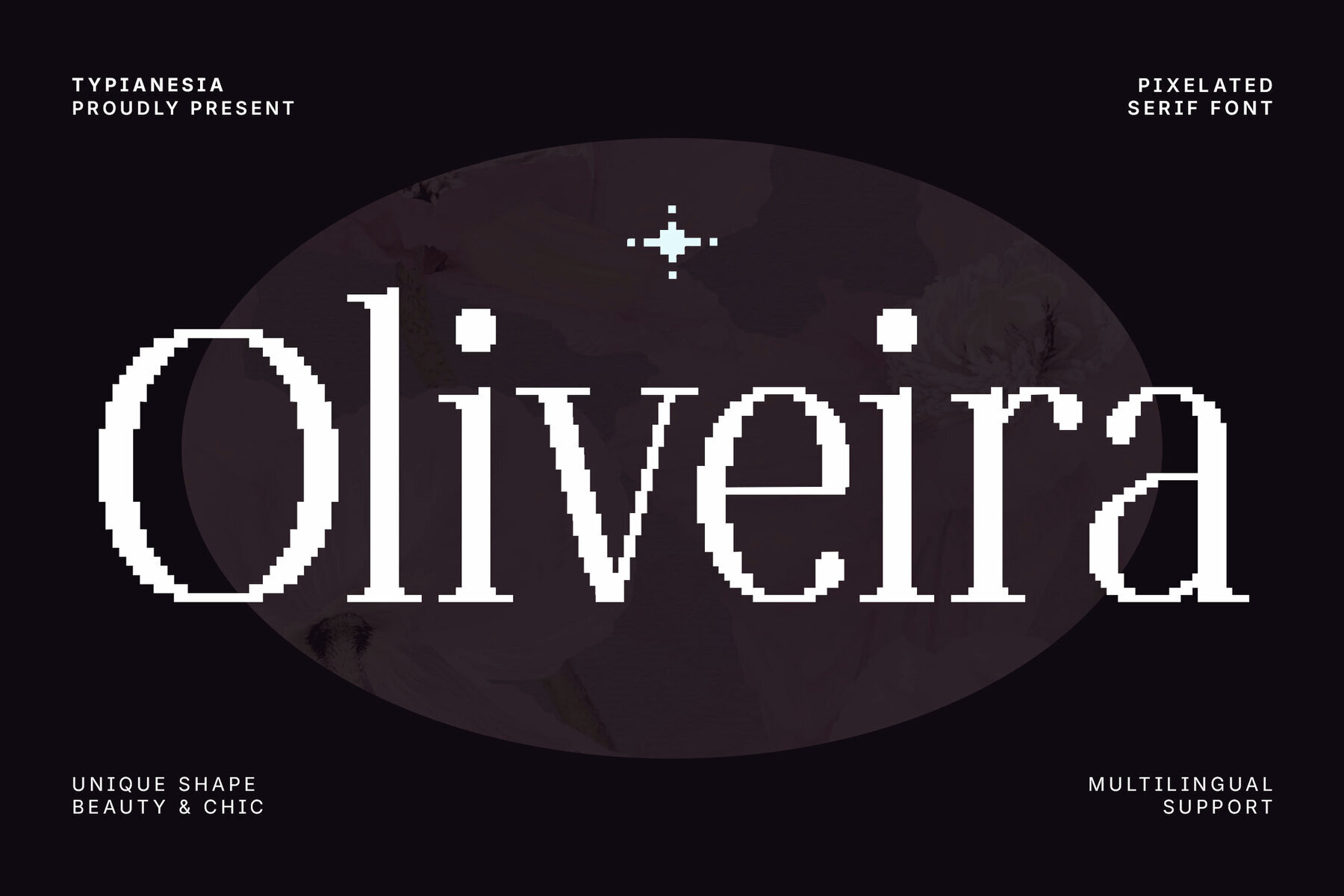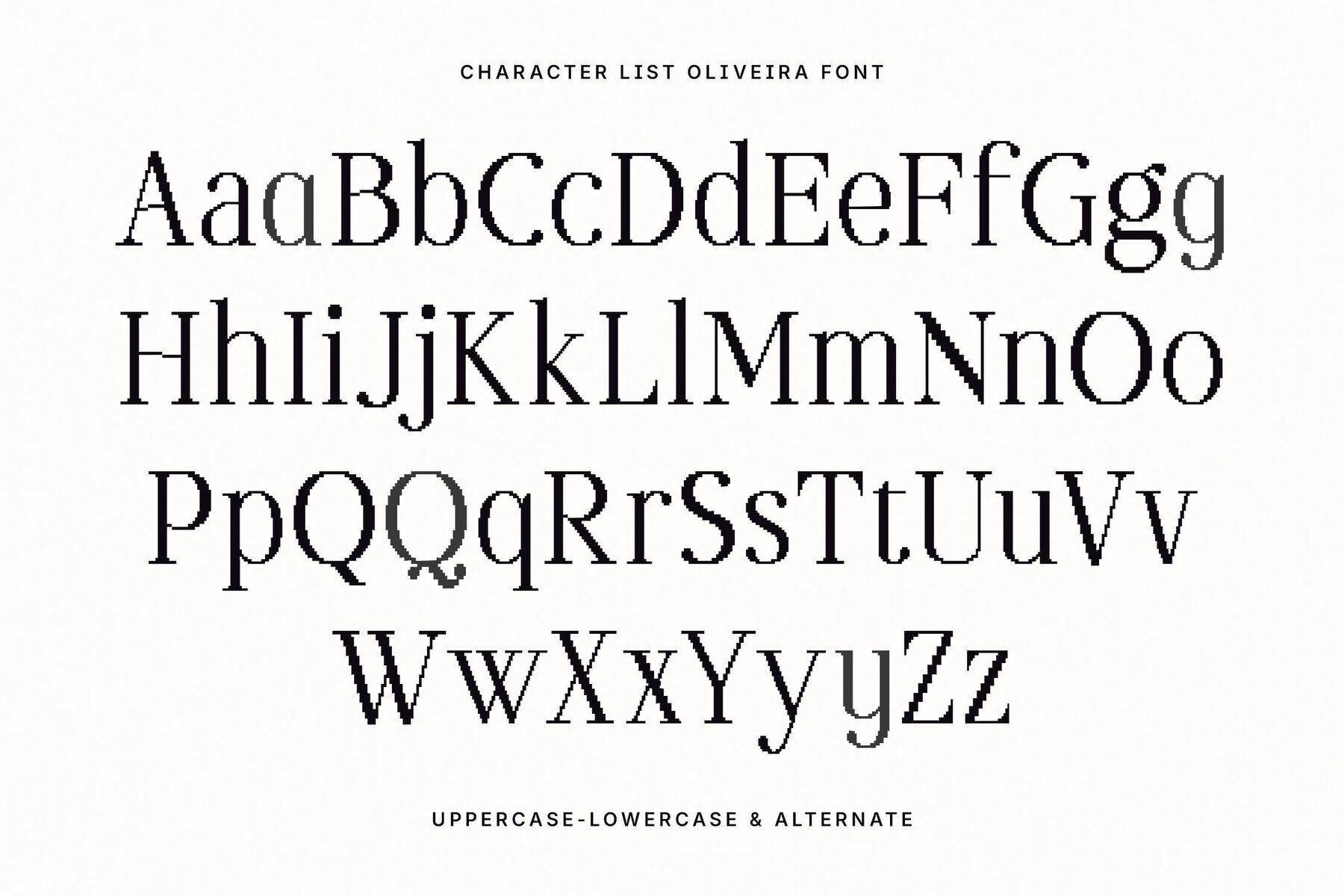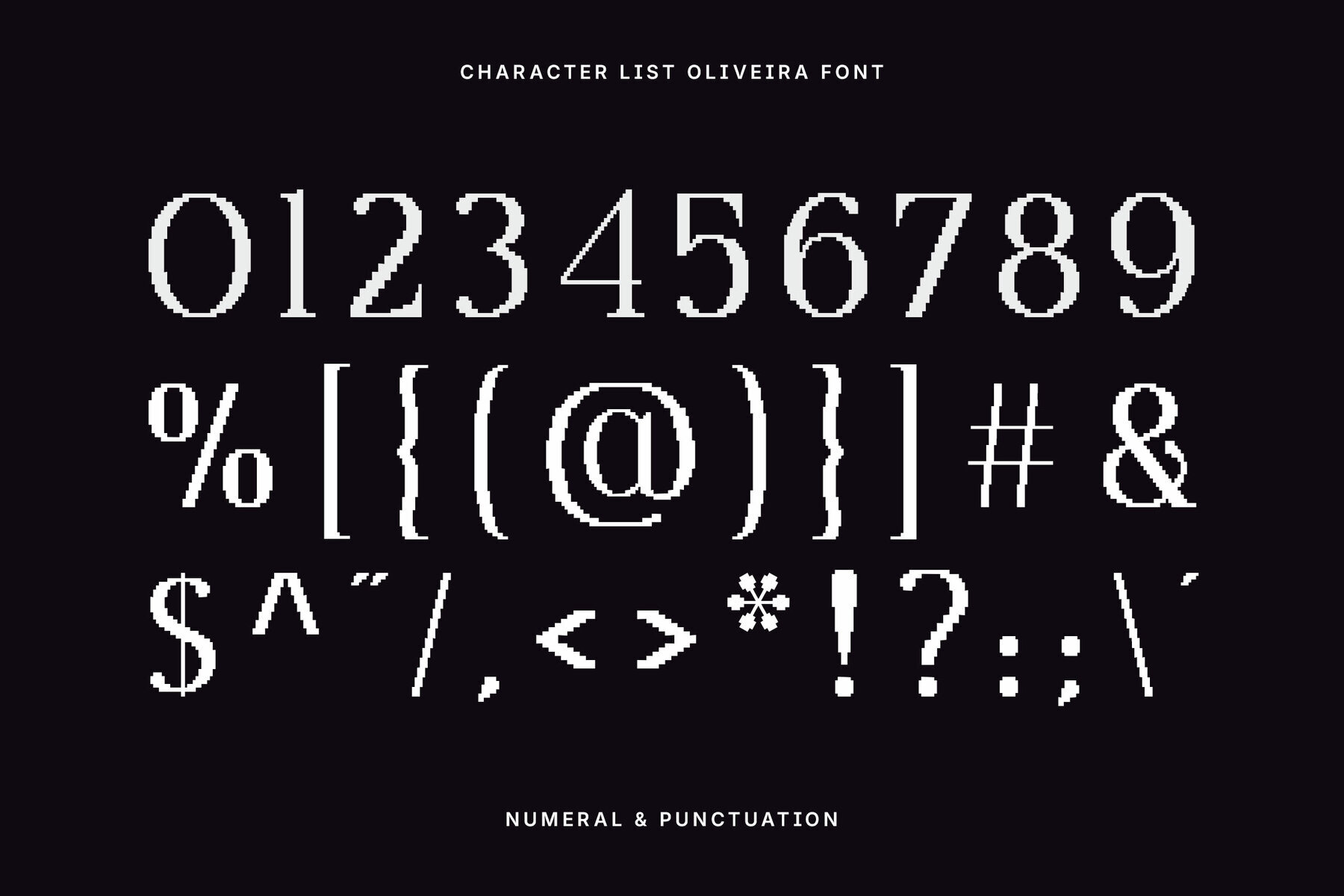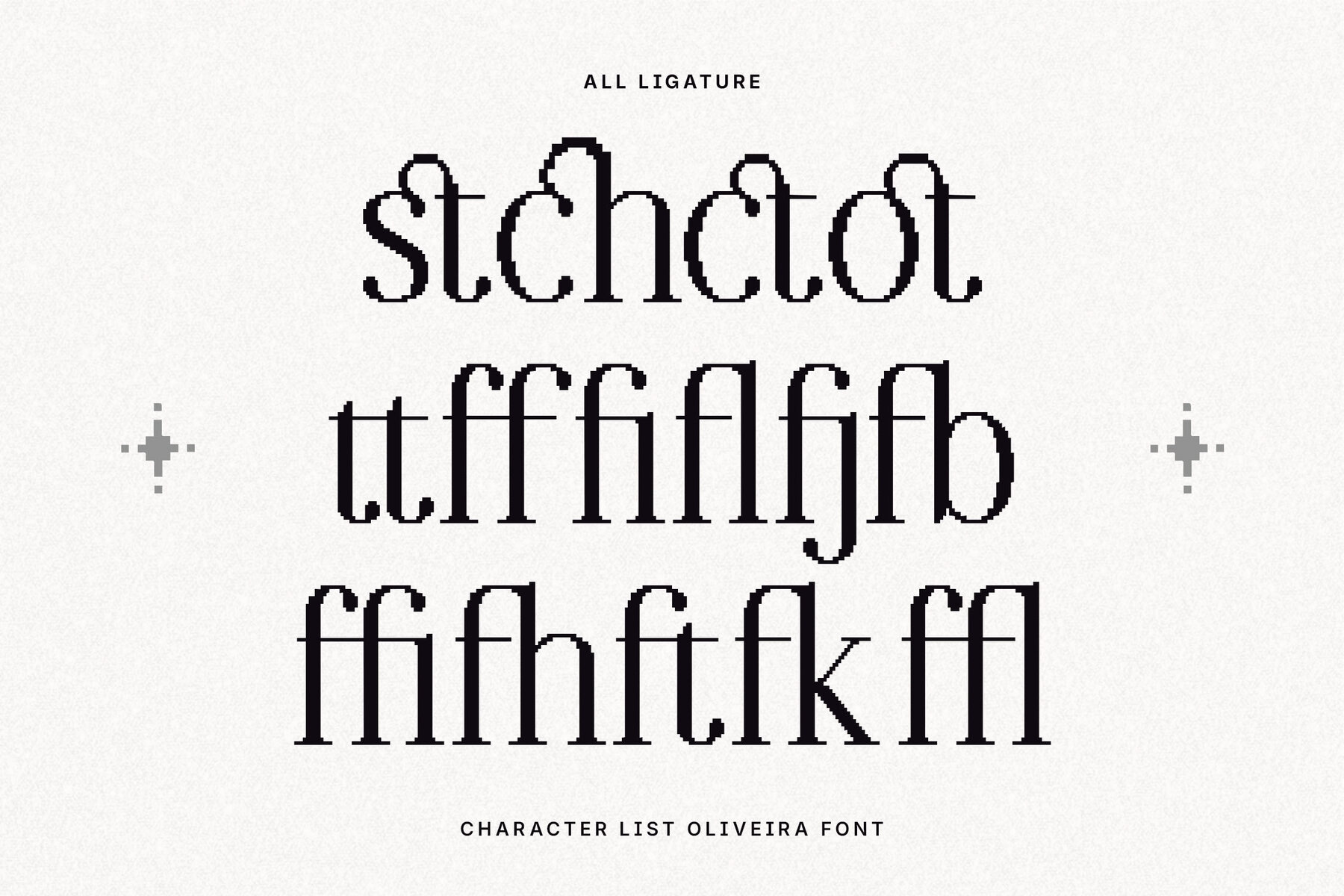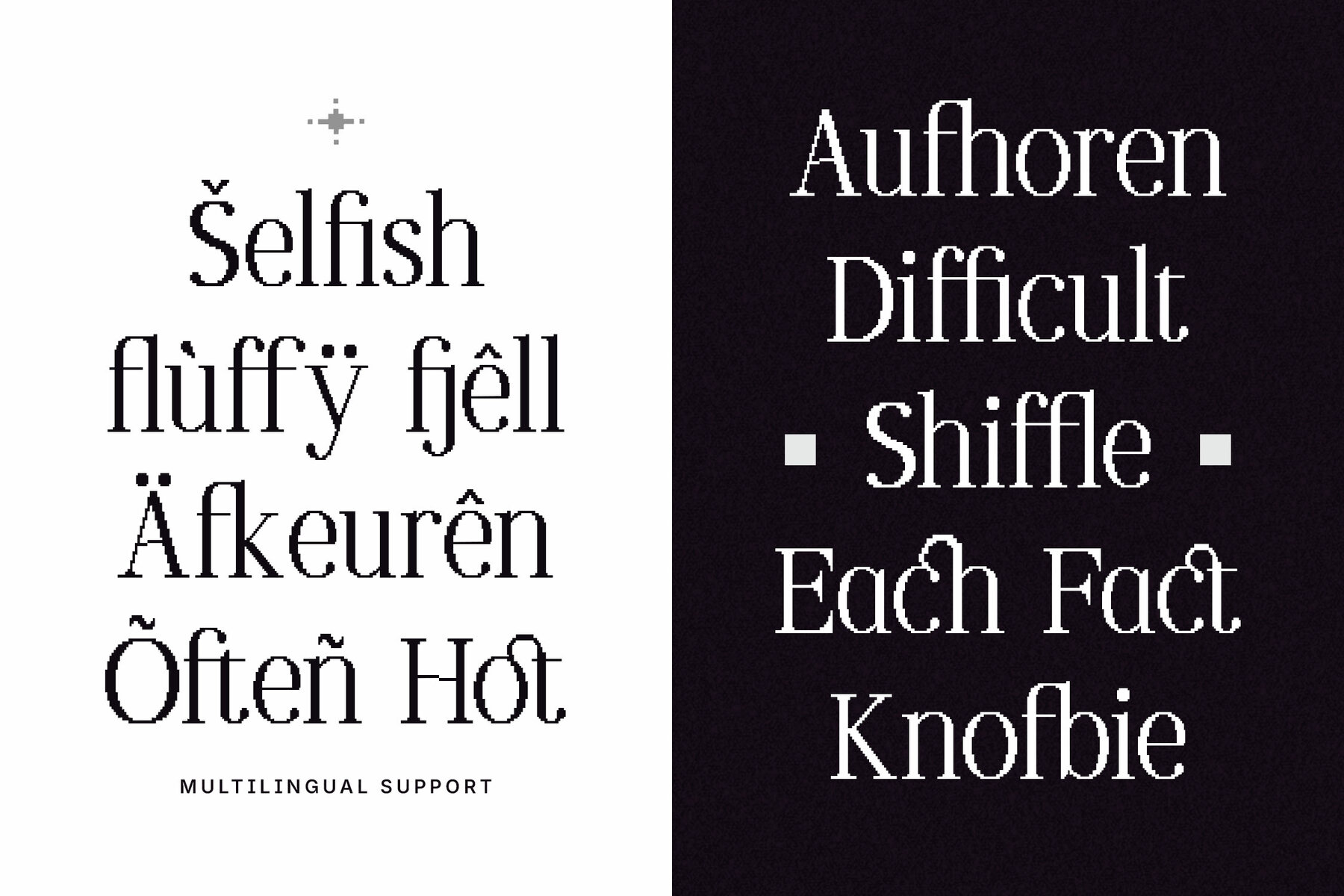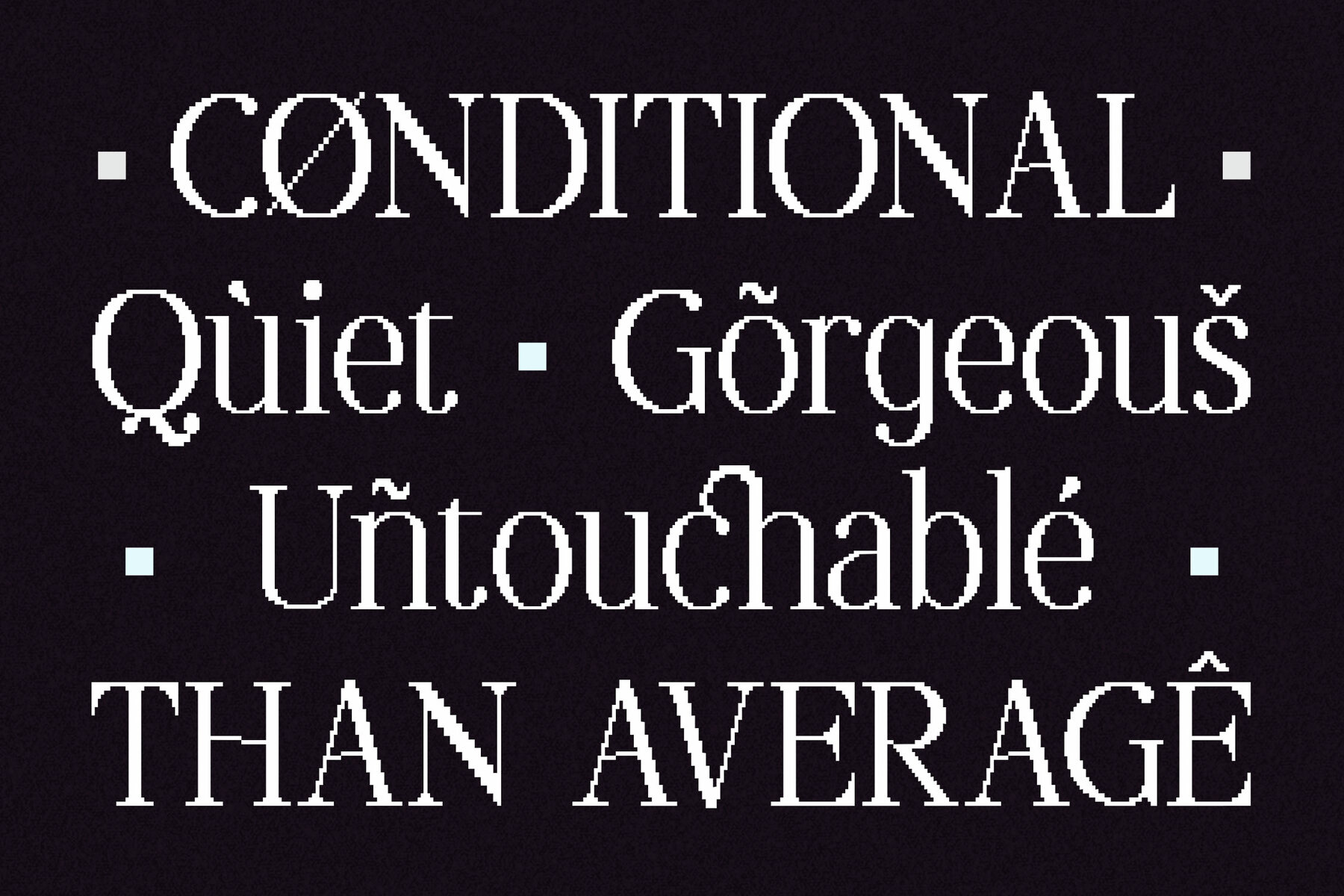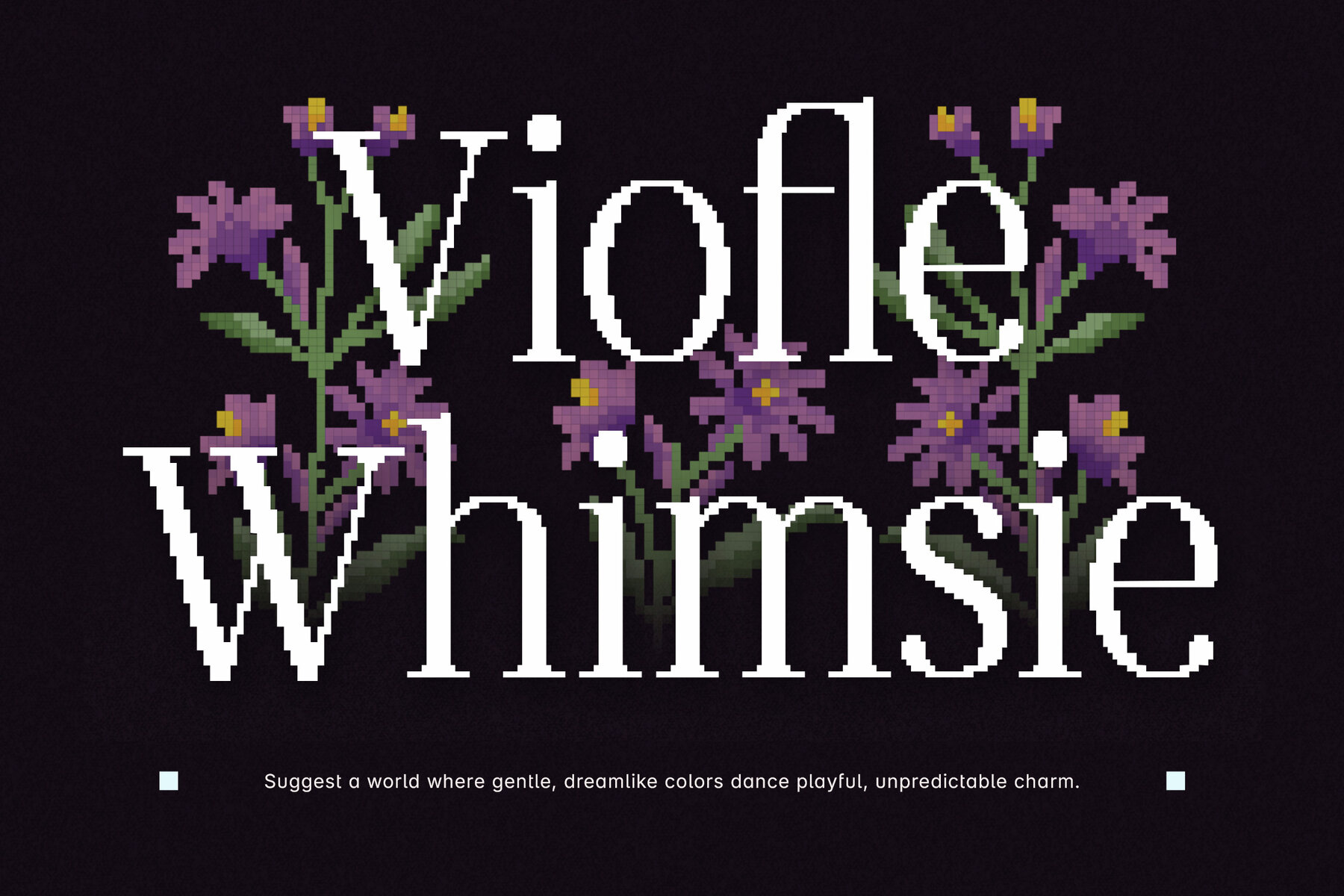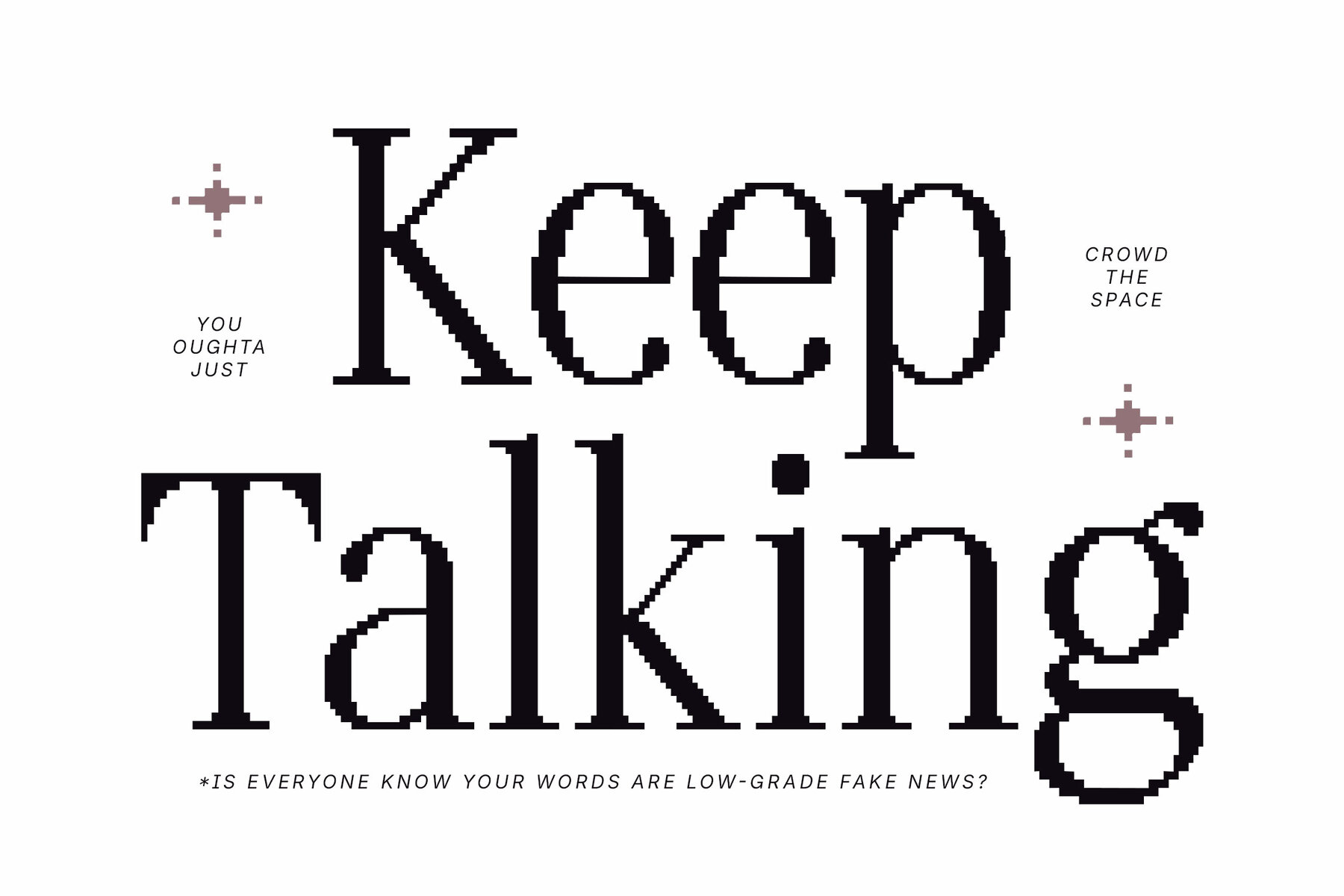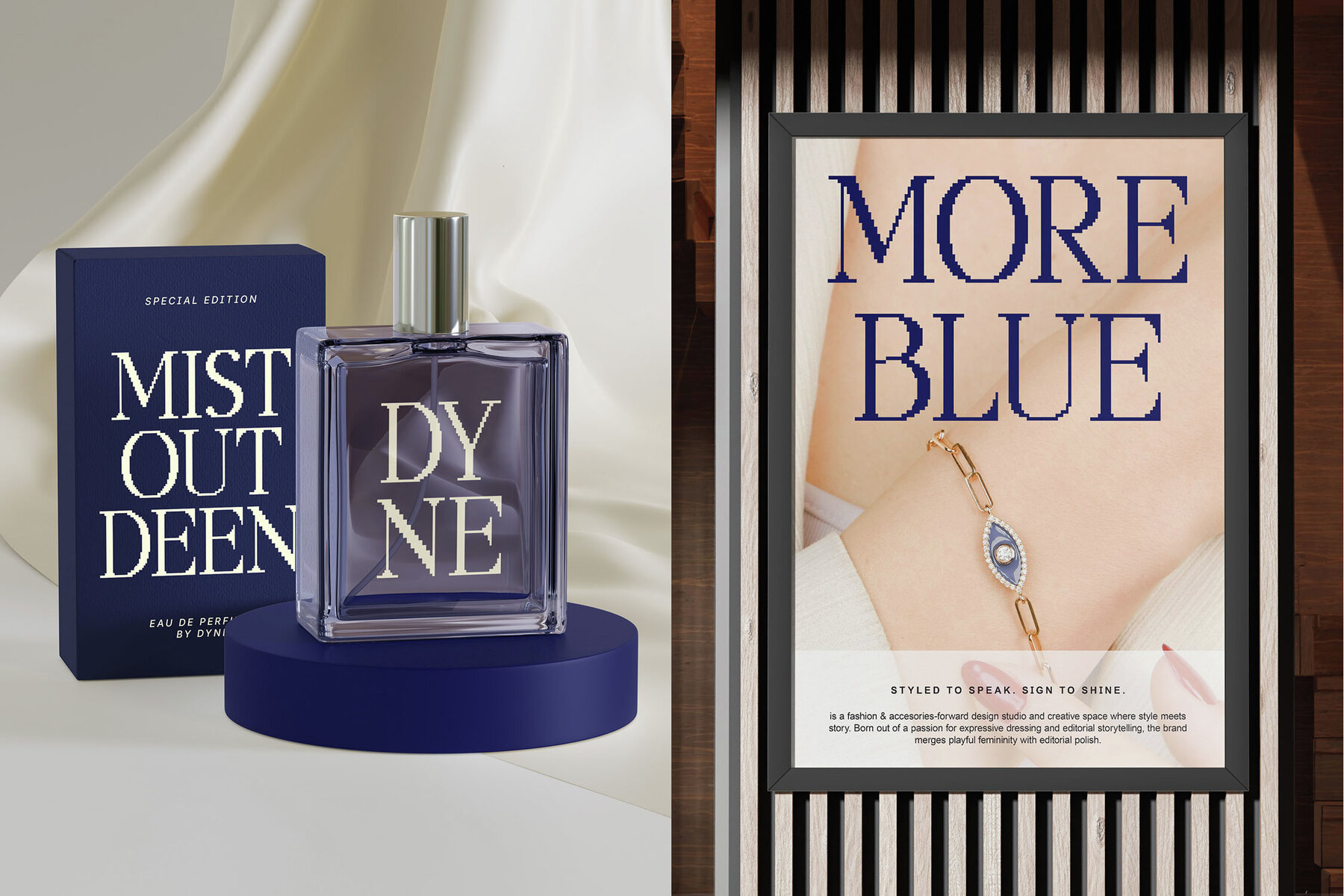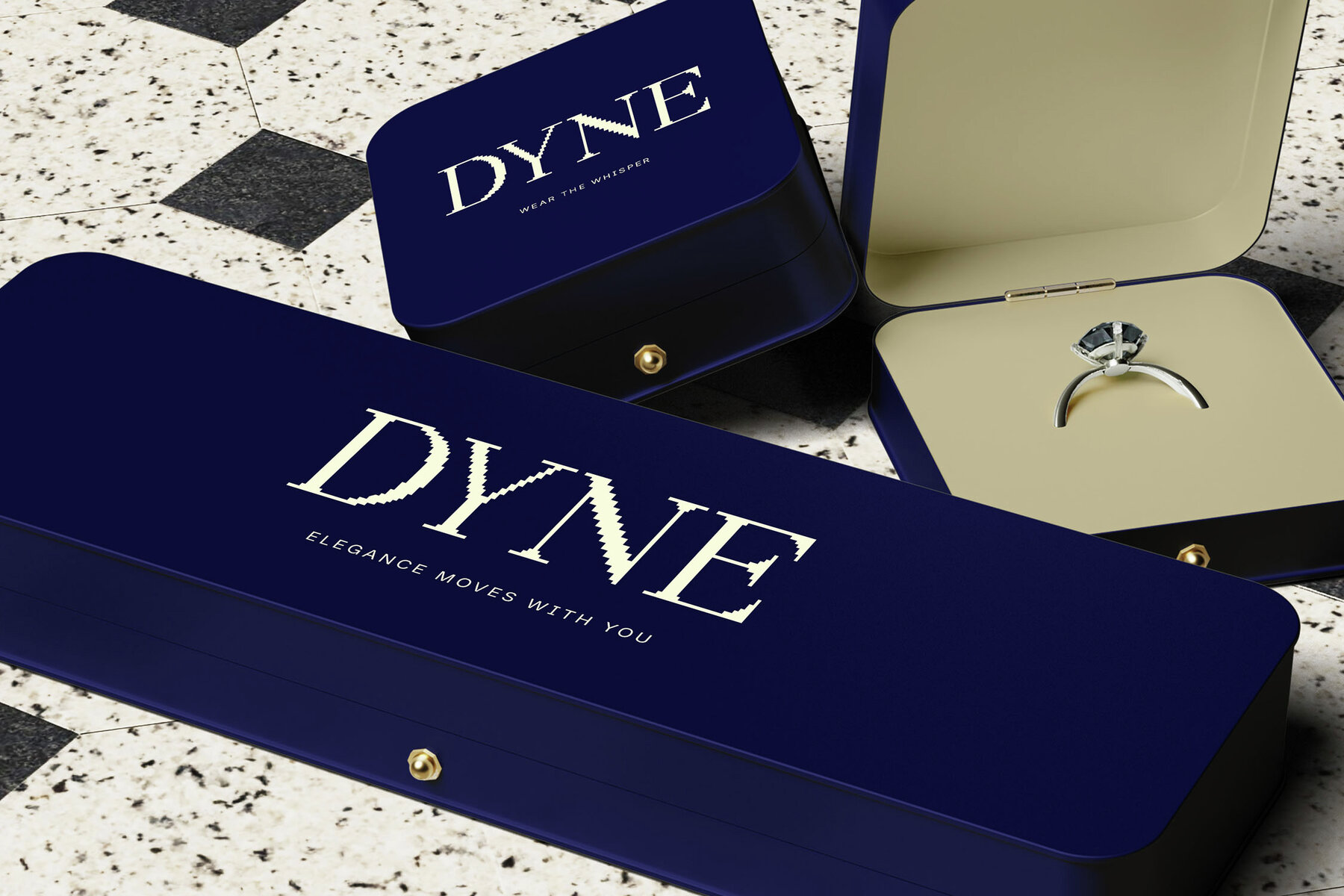
Oliviera Font
Oliveira Regular
Oliveira stands out as a distinctive pixelated serif font, elegantly marrying a retro aesthetic with contemporary flair. This unique typeface is ideally suited for diverse creative applications, ranging from branding and logo design to web design and poster creation. Whether you're crafting an advertising campaign, social media graphics, or packaging, Oliveira ensures your project leaves a lasting impression. Embrace Oliveira's pixelated beauty to elevate all your creative ventures.Oliveira: Modern Pixelated Serif with Timeless Appeal